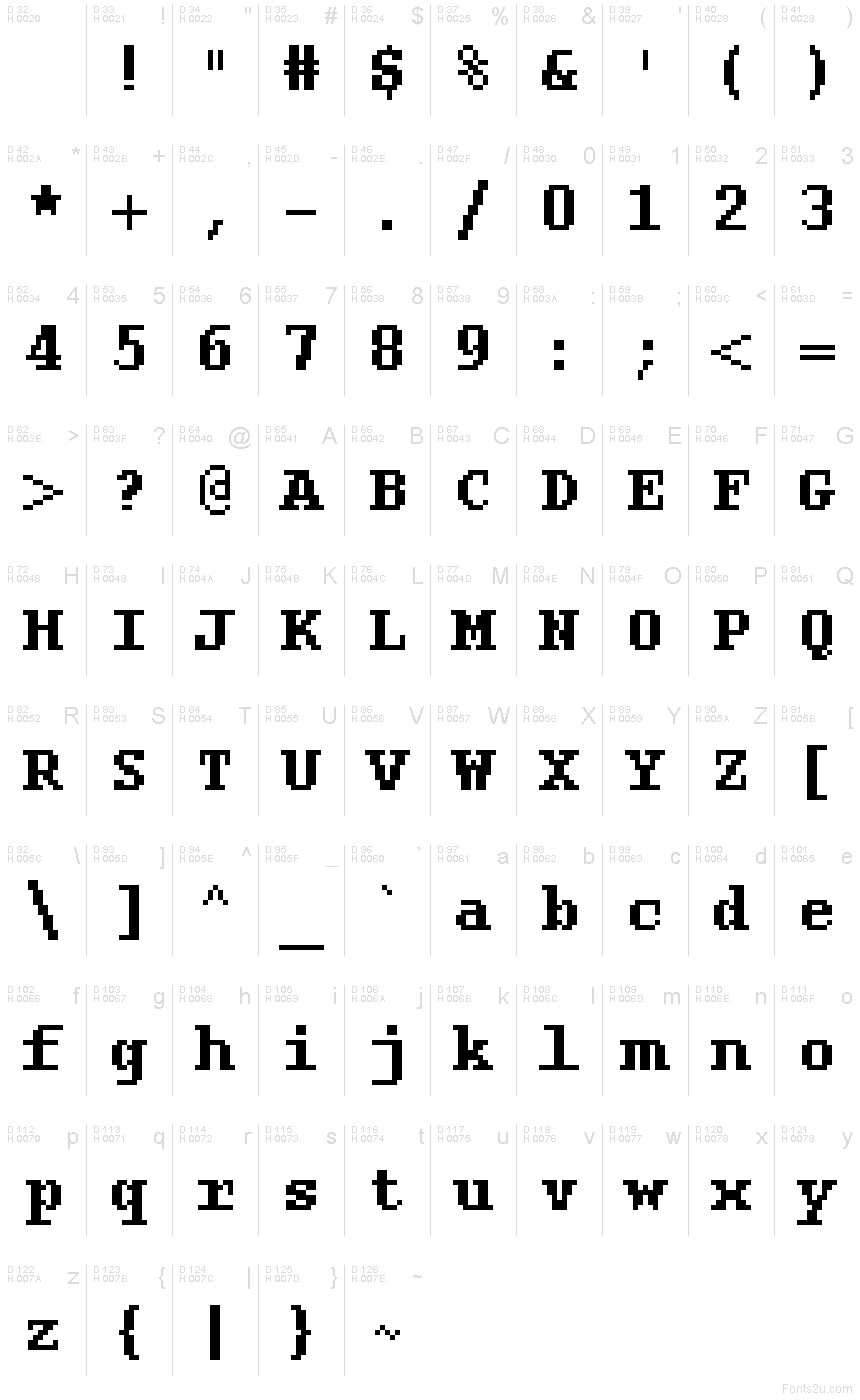
Sburbits Regular
Sburbits font by Sparkle828393 is a pixelated font with bold weight and blocky geometric style. It has a rigid structure and gives out a retro digital appearance that works great with design projects where the pixel aesthetic is important. The incomplete edges and corners of the letters make it more unique, hence ideal for youth-aimed ideas.
Designer description: Fixed width accurate Homestuck font. Cloned from Courierstuck and edited to have the same width as Fontstuck Extended.